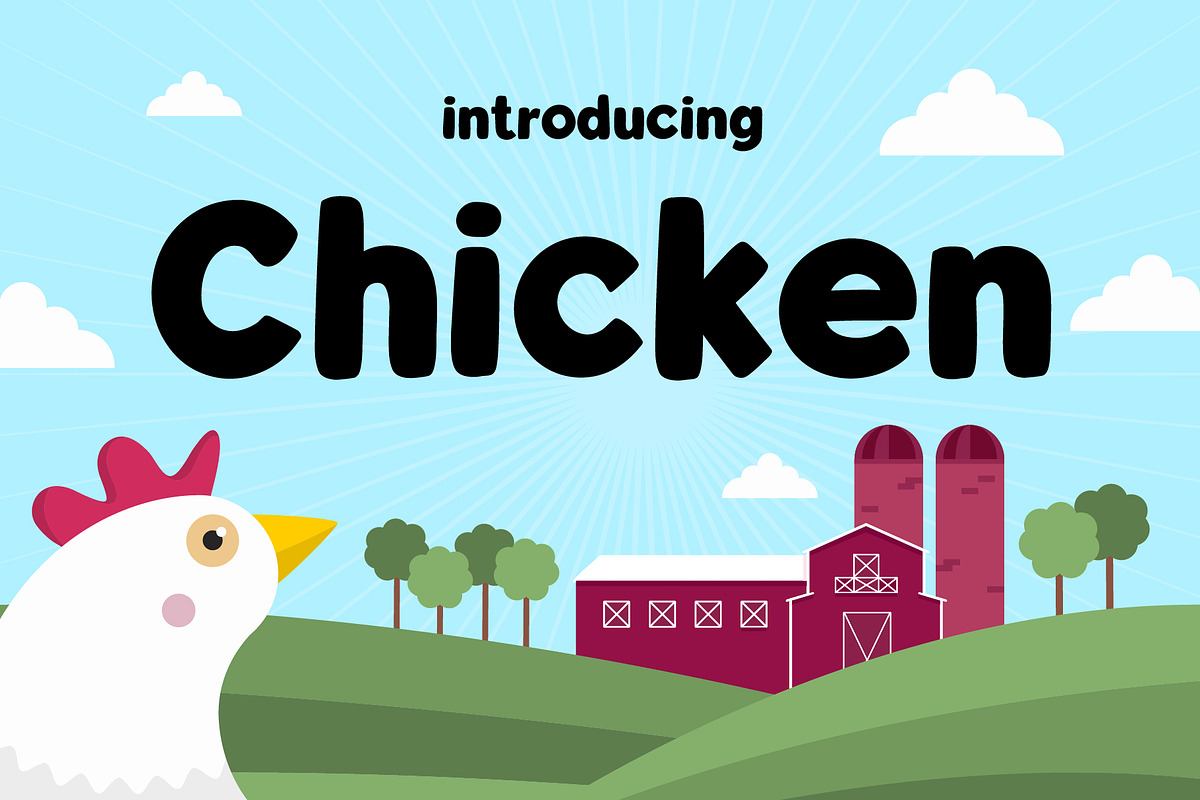
Chicken Font Free Download is a fun and quirky typeface designed to bring a playful and energetic vibe to your designs. With its round shapes, whimsical letterforms, and bold style, Chicken is perfect for food branding, restaurant menus, event promotions, children's projects, and casual social media graphics.
This font captures a lighthearted and approachable feel, making it ideal for projects that need to evoke joy and fun. Whether you’re creating a logo for a chicken restaurant, designing playful product packaging, or crafting a charming invitation, Chicken Font adds personality and warmth to your typography.